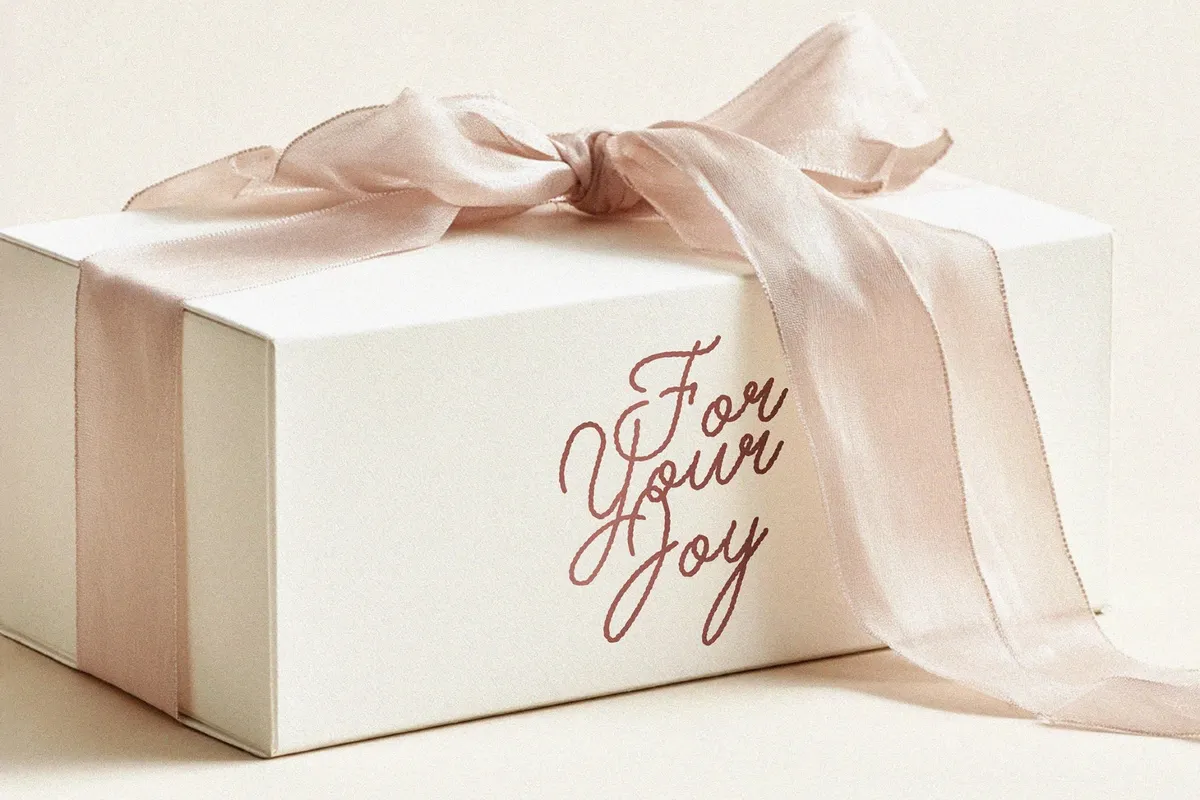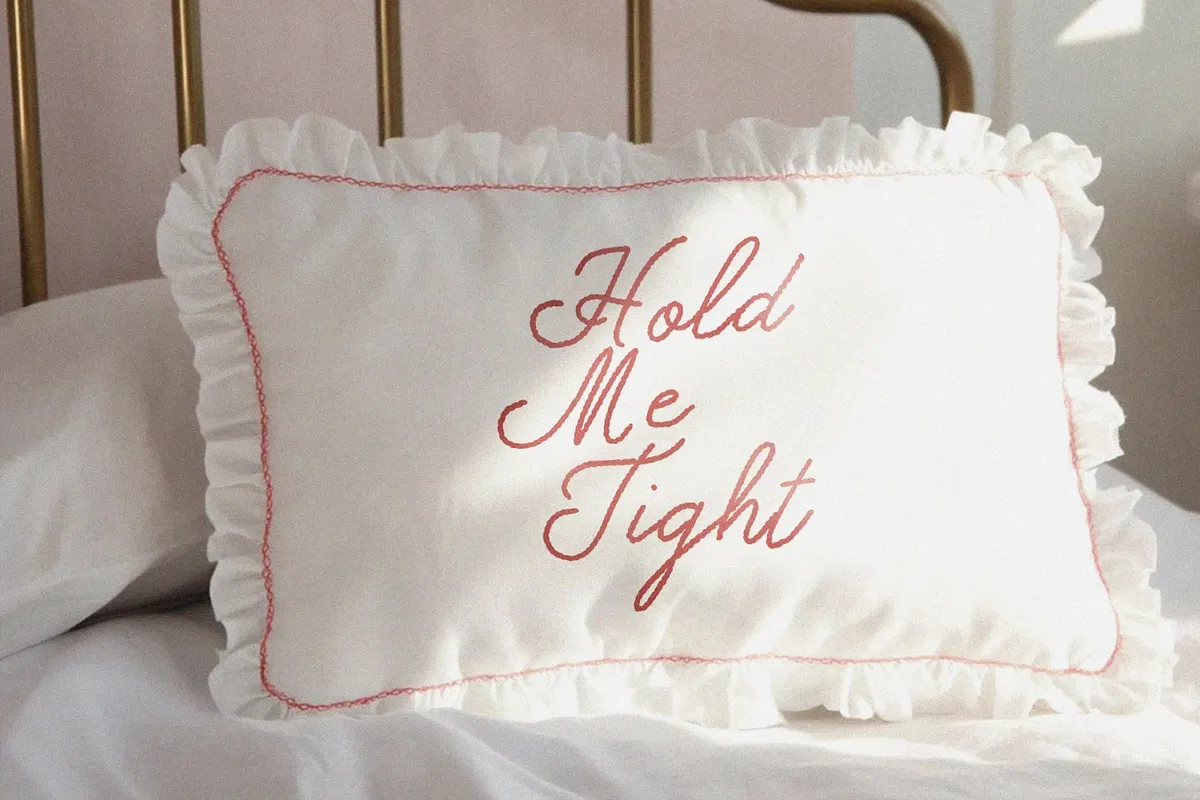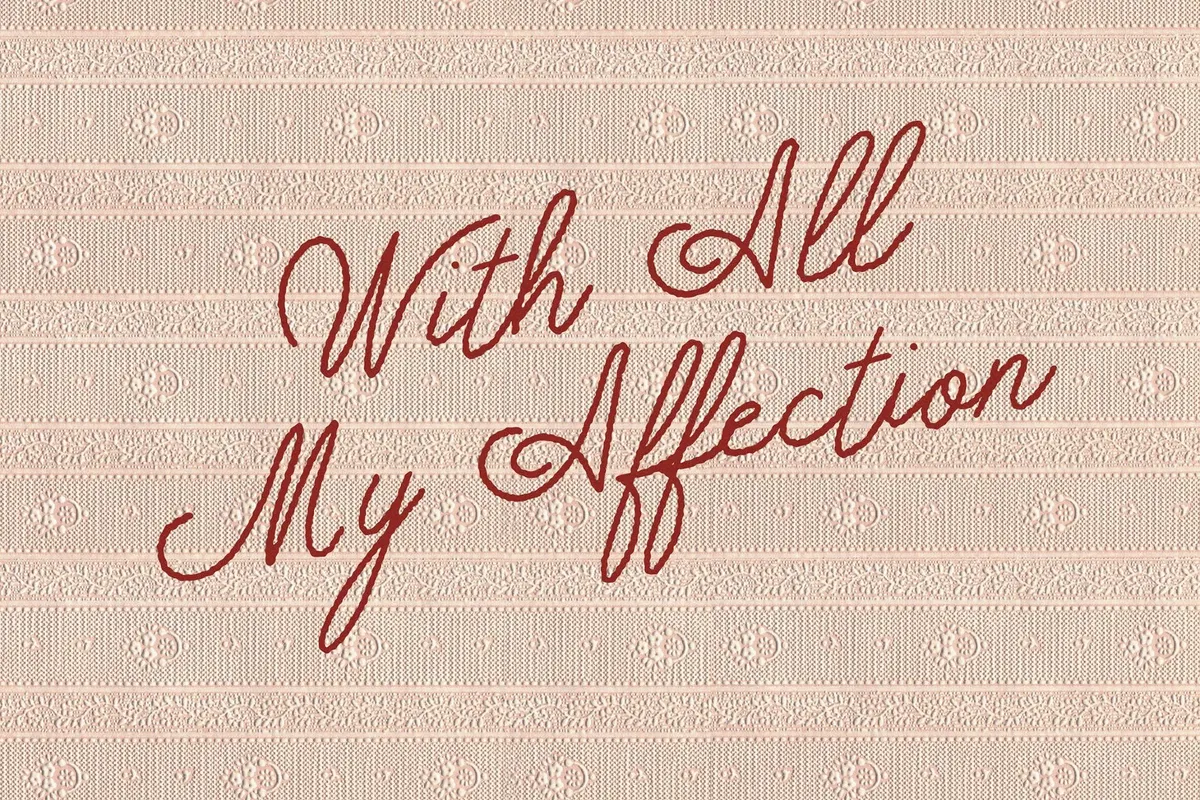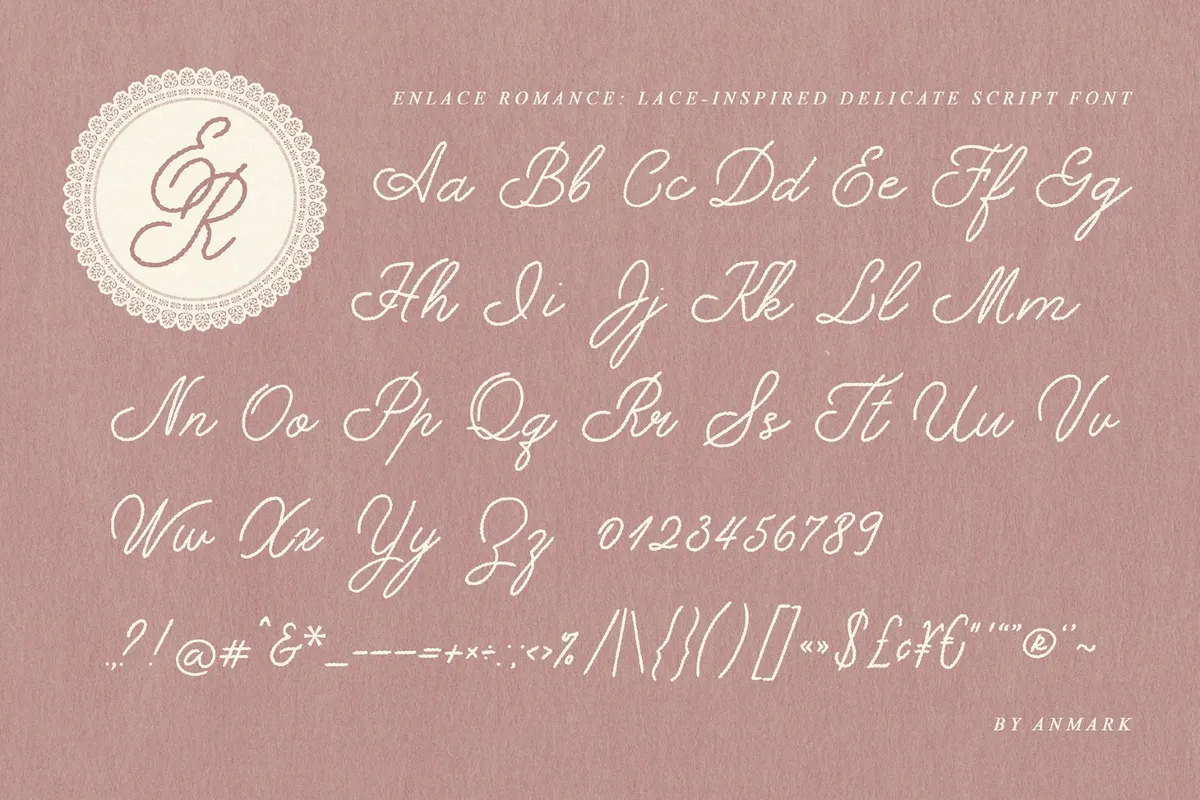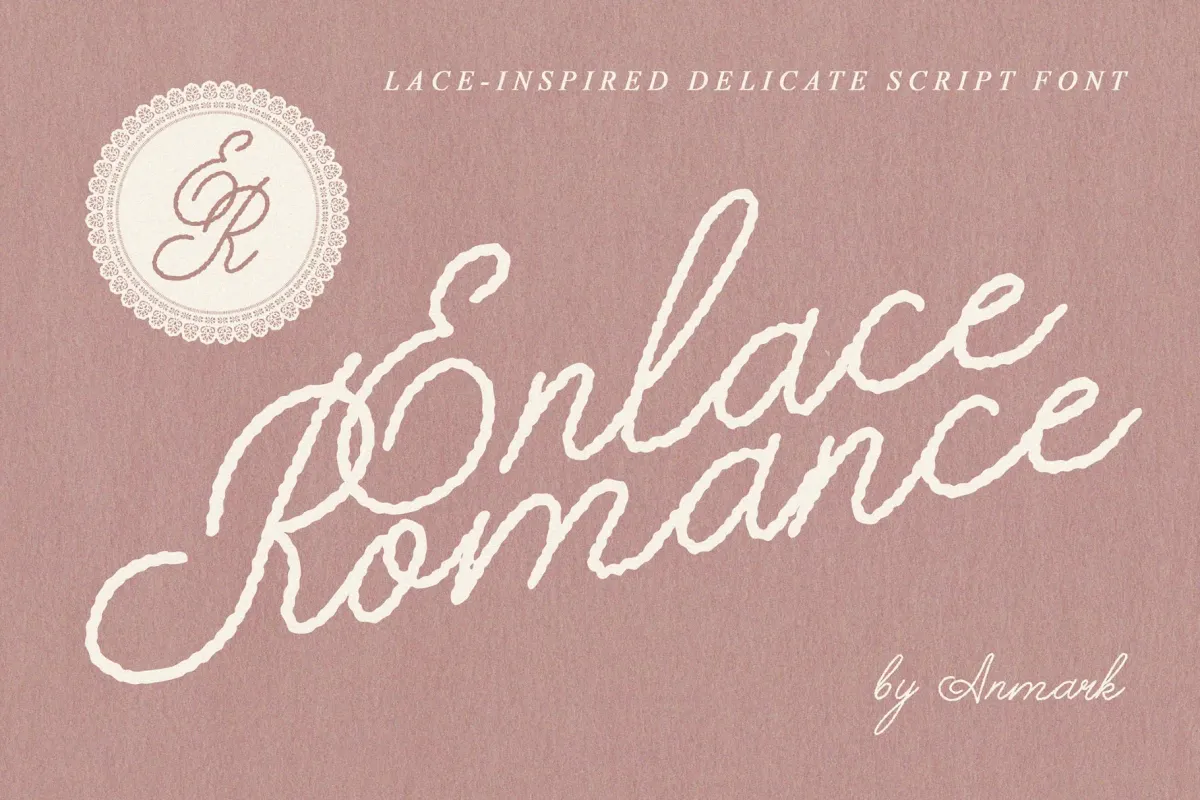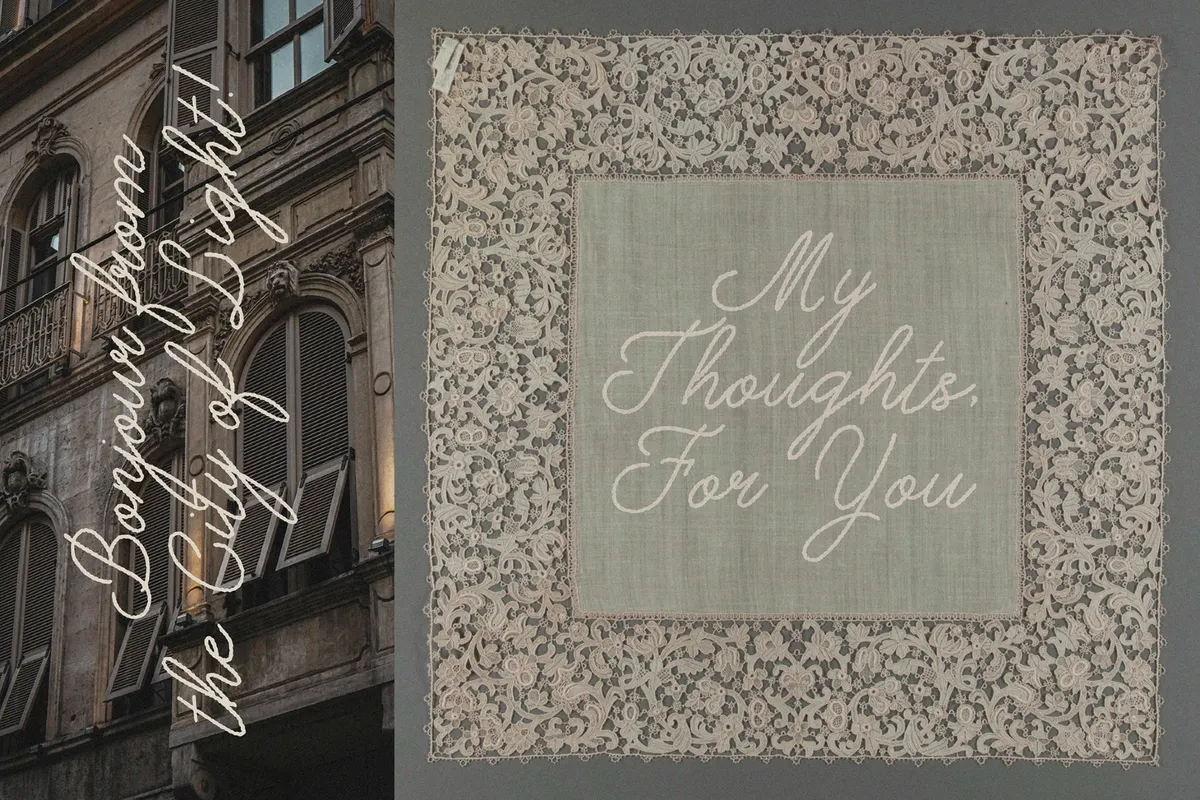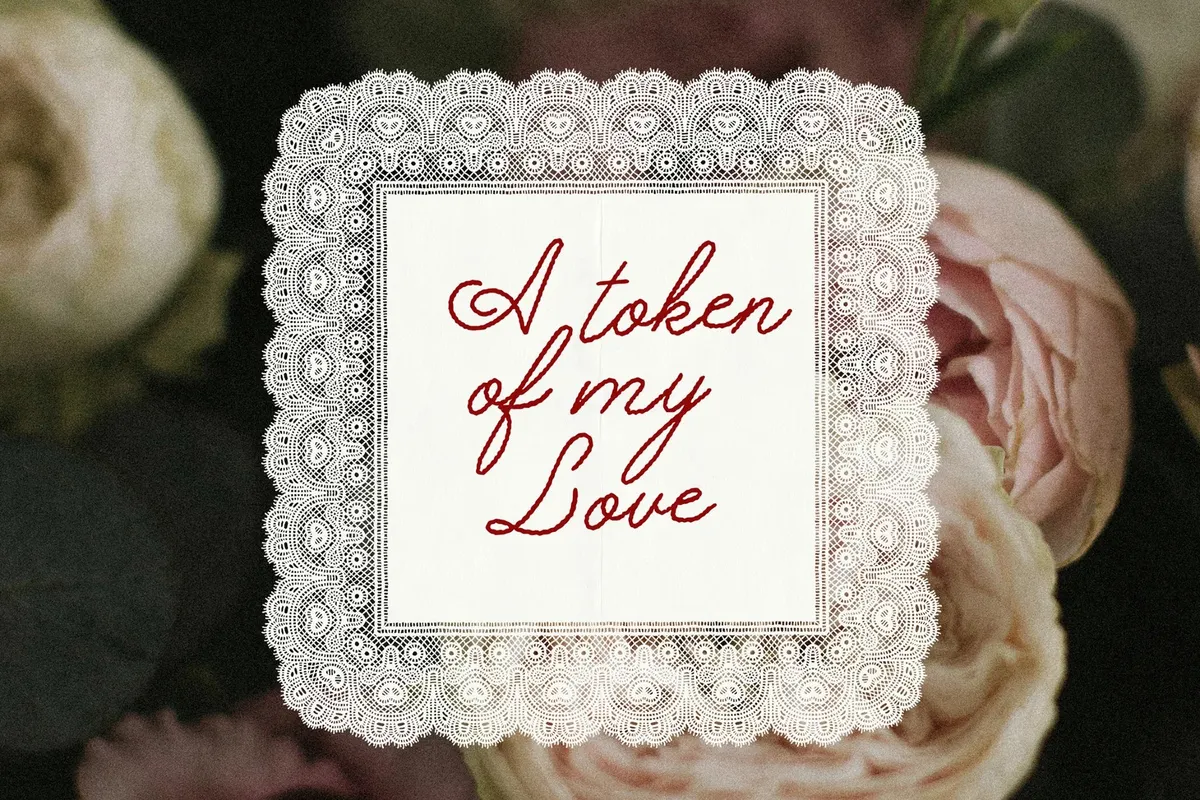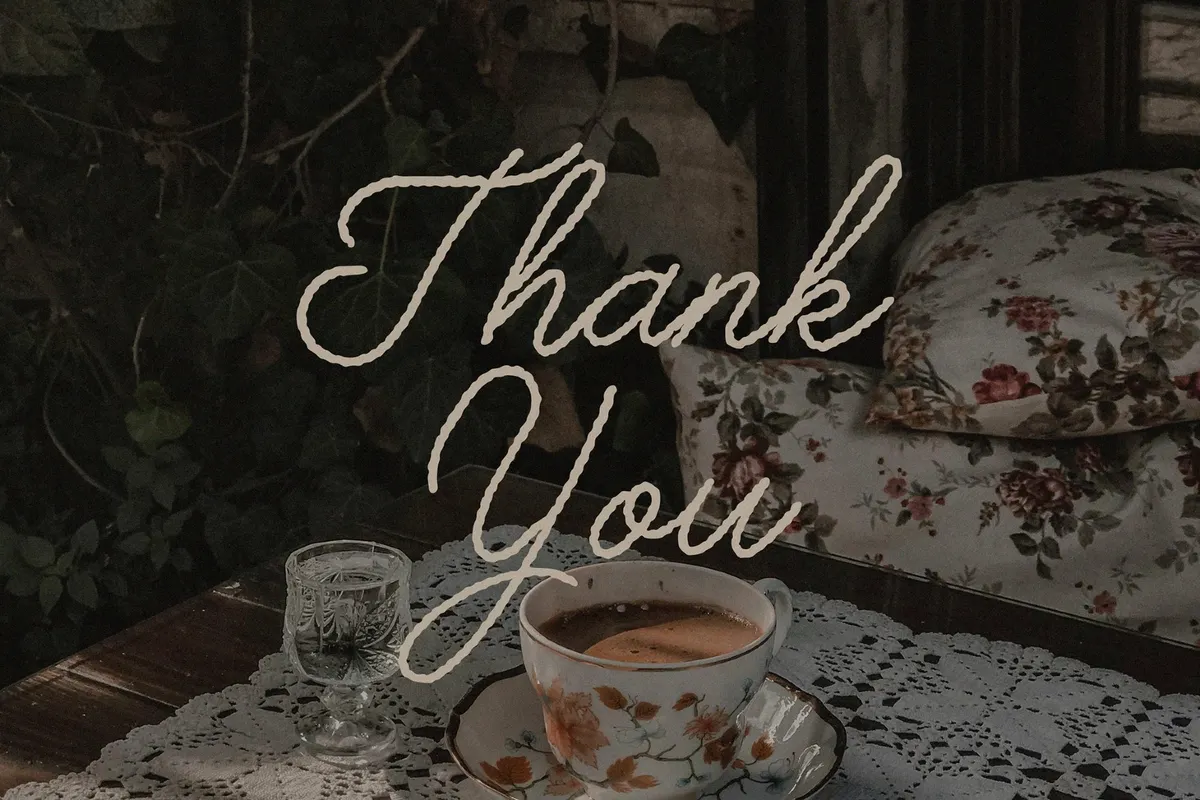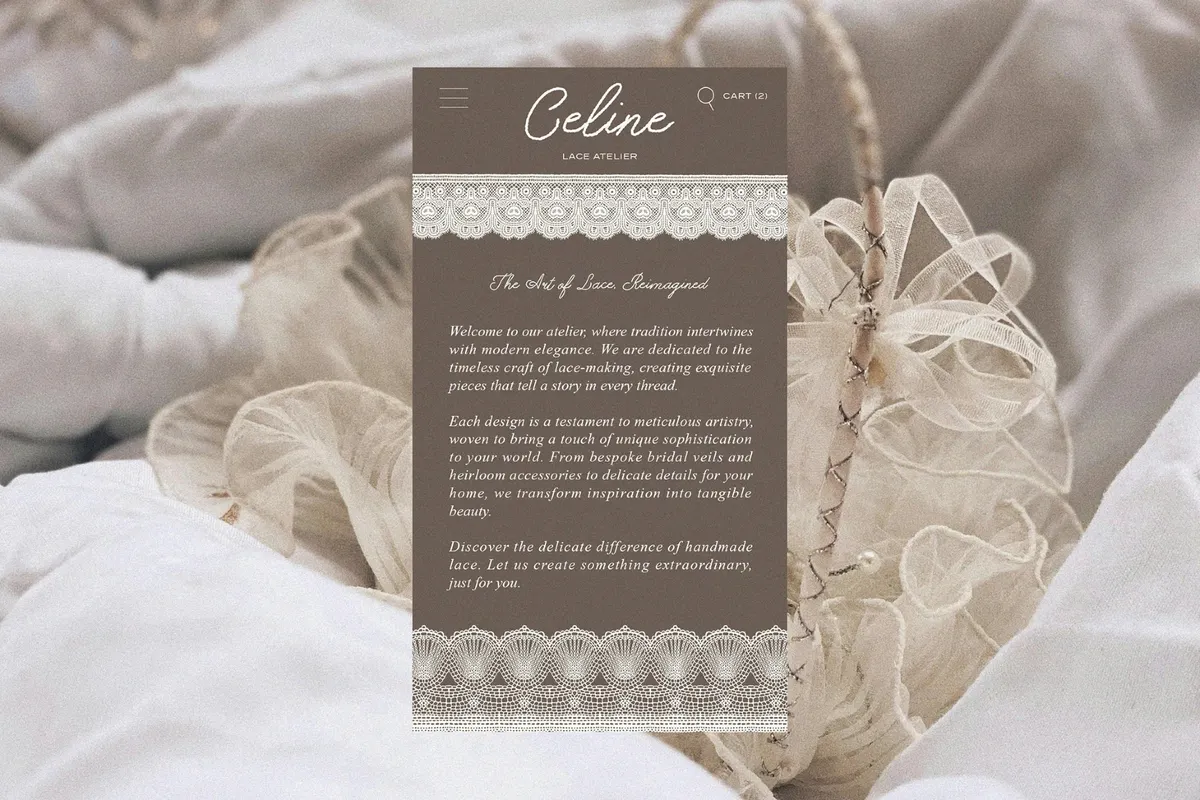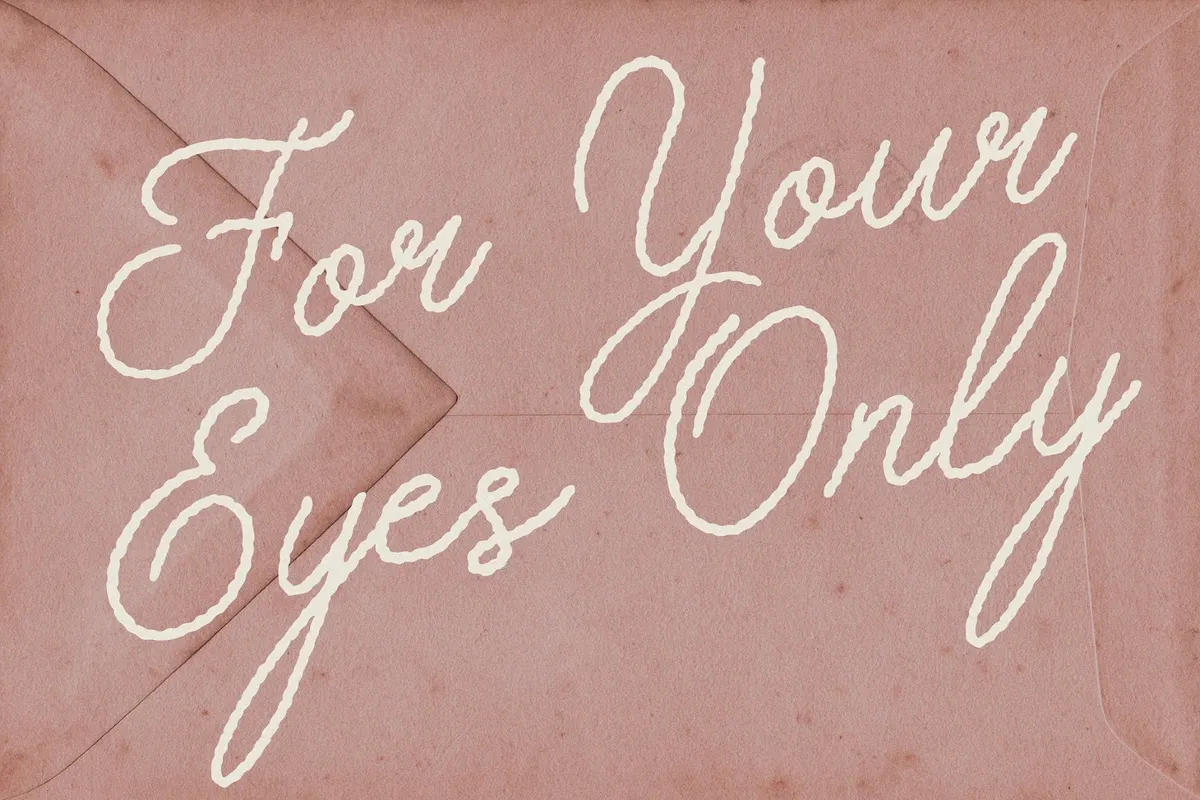
Enlace Romance: Delicate Script Font
Enlace Romance is a needlework-style script with its manners borrowed from vintage linen monograms, wedding handkerchief initials, and the ornamental loops. The stroke is light and consistent, then drifts into airy curls and long entry strokes. The spacing looks happiest when you let it breathe— then pair it with a restrained serif or small-caps sans for dates, locations, and supporting copy.
- Wedding stationery — invitation headers, RSVP names, envelope addressees.
- Monograms and seals — wax stamp artwork, sticker badges, embossing plates.
- Bridal and boutique packaging — tissue paper marks, ribbon tags, box lids.
- Beauty and fragrance labels — perfume names, candle vessels, soap bands.
- Event collateral — menu titles, place cards, table numbers, programs.
- Photography branding — watermark signatures, album covers, proof slips.
- Gift goods — cards, wrap stickers, favor tags, thank-you notes.
- Editorial styling — pull-quote signatures, chapter openers, dedication pages.
- Social templates — announcement posts, story frames, highlight covers.
- Hospitality details — room gift notes, spa menus, premium add-on cards.